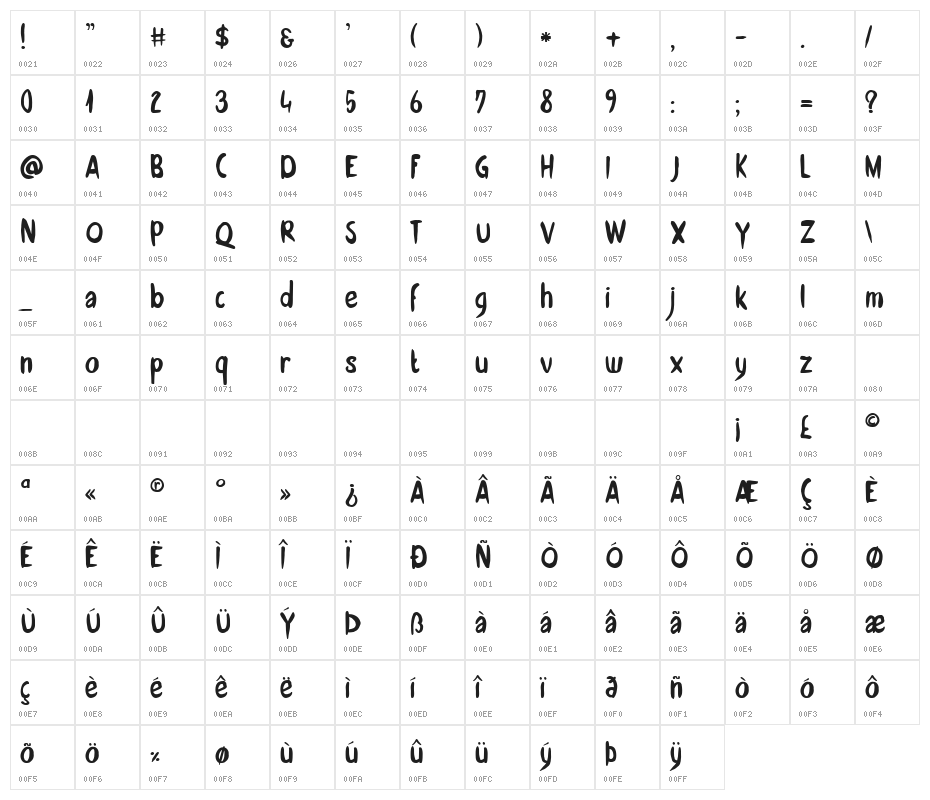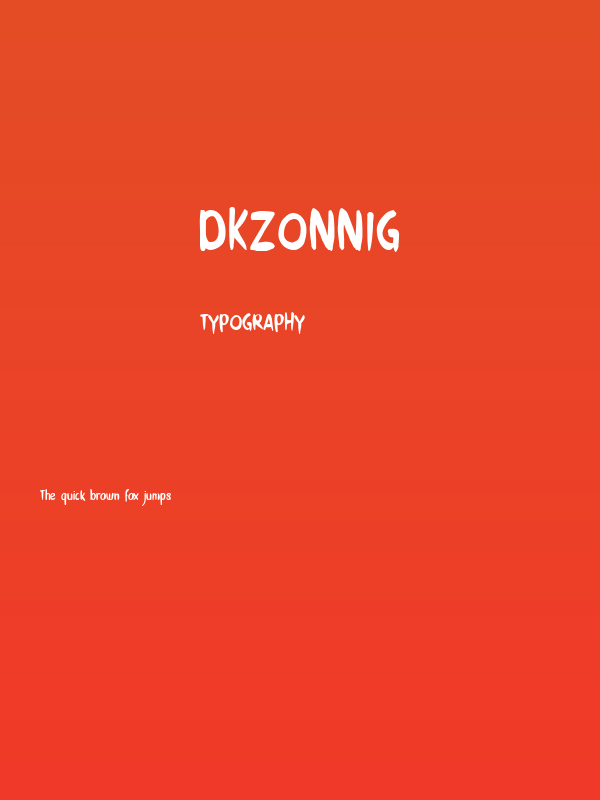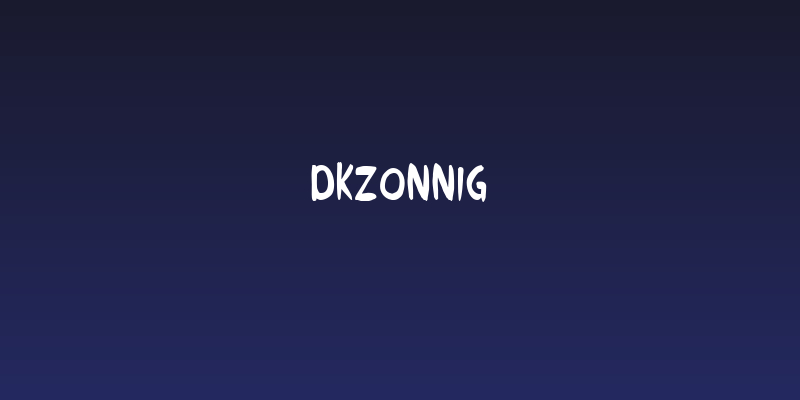
DKZonnig Font
DKZonnig Description
This playful and energetic font features a handwritten style with bold, rounded strokes that convey a sense of fun and informality. The characters are slightly irregular, adding a whimsical touch to the overall appearance. The uppercase and lowercase letters are well-balanced, with a consistent flow that maintains readability. Numbers and special characters are designed with the same lively spirit, making them suitable for a variety of creative projects. The font's unique personality makes it ideal for designs that aim to capture attention and convey a friendly, approachable vibe.
Proposed ProjectsPerfect for children's books, playful branding, greeting cards, and informal invitations.